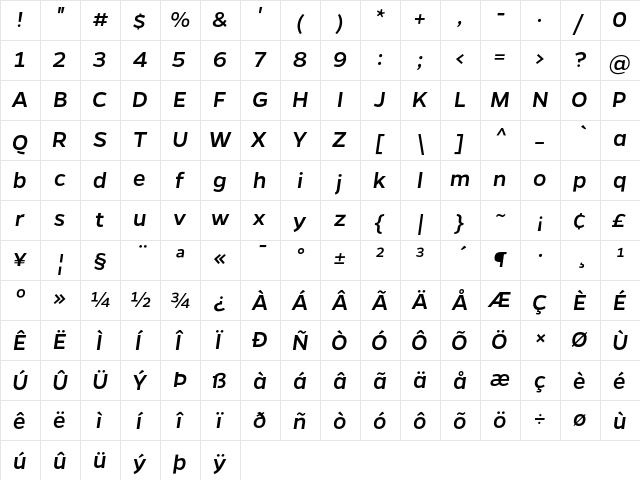
Gentona Medium Italic Regular
| Foundry | Rene Bieder |
| Designer | Rene Bieder |
Design Context for Gentona Medium Italic Typeface
Gentona Medium Italic offers clean, dependable letterforms without strong stylistic allegiance, making it a practical choice for designers who need flexibility. The slanted form adds forward momentum and visual energy.